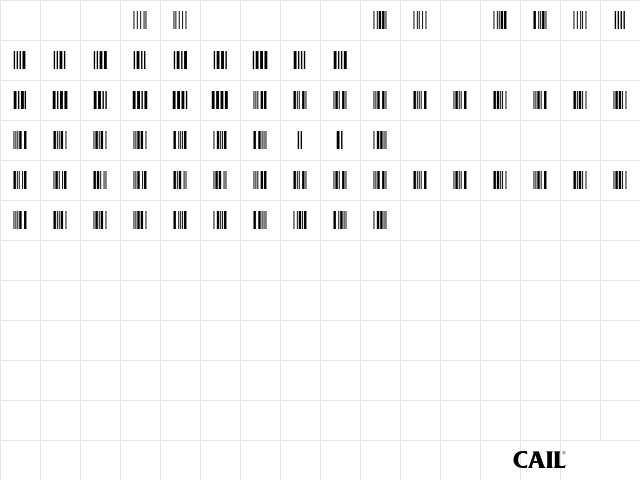
3 of 9 Barcode Regular
Design Context for 3 of 9 Barcode Typeface
3 of 9 Barcode uses fixed-width spacing throughout, giving it the structured, systematic character associated with coding environments and technical documentation.
Well-suited to data-driven dashboards, coding tutorials, and any design that wants to reference the world of programming.
Pro Tip: Use 3 of 9 Barcode with slightly increased line-height for extended reading — fixed-width spacing can feel dense in longer passages without extra breathing room.